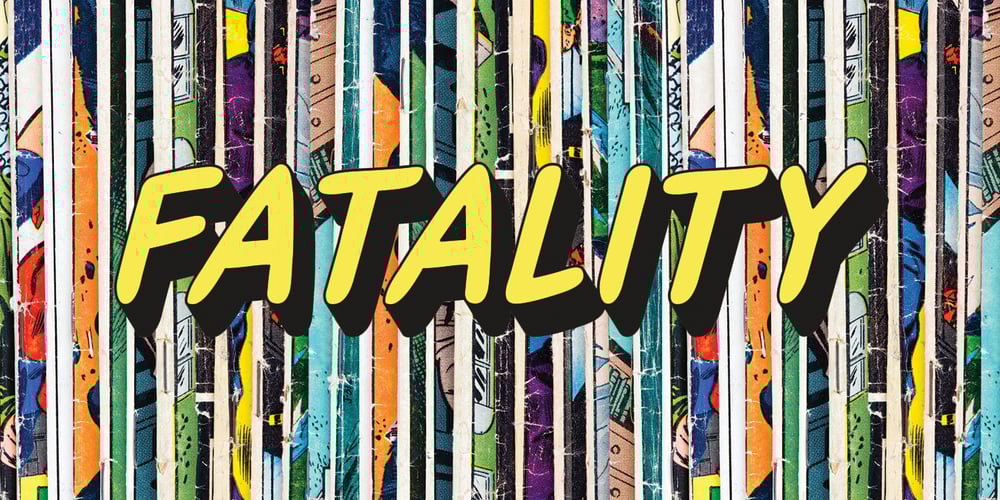
Fatality
Fatality font
Fatality Font Family was designed by Daniel Bak and published by Artcity. Fatality contains 4 styles and family package options. Font designed for lettering dialogue baloons in comic books.